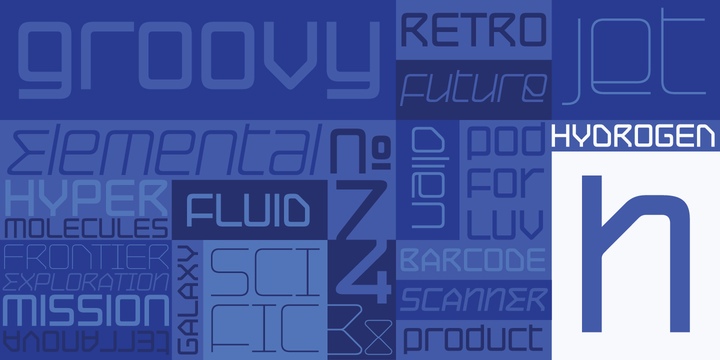
Hydrogen Font
Hydrogen Font is perfect for clean energy branding, scientific research publications, renewable technology materials, chemistry education resources, sustainable innovation campaigns, environmental science presentations, fuel cell technology communications, atomic research documentation, green technology startups, and pure energy industry materials.
What makes Hydrogen Font so exciting is its elemental embodiment of pure energy and scientific precision that captures the fundamental simplicity of the universe's most basic element through cleanly engineered typography. This scientifically inspired typeface features minimal letterforms with atomic proportions and energy-influenced character variations that immediately convey purity, efficiency, and the transformative power of clean energy solutions. The font's elemental construction and pure aesthetic create an instant sense of scientific clarity and sustainable innovation, making it ideal for projects that need to communicate clean energy solutions, scientific advancement, and the life-sustaining power of sustainable technology to audiences seeking authentic environmental solutions and meaningful scientific progress.
The Hydrogen Font family typically includes multiple clean weights and elemental styles, often featuring ultra-light through bold variations along with efficiently designed italic versions and energy-optimized alternatives. Scientific font collections frequently offer extensive character sets including chemical symbols, energy notation, and scientific elements that ensure optimal typography across diverse research communication requirements and clean technology applications.
The elemental nature of Hydrogen Font makes it particularly effective for targeting demographics that prioritize environmental sustainability and clean energy solutions in their professional and personal choices. Clean technology marketers and environmental researchers will find this font especially valuable for materials that must establish immediate scientific credibility and connect with audiences seeking authentic sustainable experiences and meaningful environmental innovation.
What sets Hydrogen Font apart is its ability to convey scientific purity while maintaining the accessibility necessary for effective environmental education and clean energy communication. This balanced characteristic makes it suitable for both technical research applications and public environmental contexts where projecting scientific competence and maintaining environmental accessibility must work together harmoniously.
Professional designers recognize that Hydrogen Font brings invaluable scientific credibility to projects across industries including renewable energy, environmental research, clean technology, and sustainable innovation. Its pure character and elemental appeal make it essential for organizations whose mission centers on advancing clean energy solutions, promoting environmental sustainability, and creating meaningful connections between scientific innovation and environmental protection.
The systematically optimized elemental design of Hydrogen Font ensures consistent clean energy messaging across all sustainability-focused communication applications while honoring the fundamental principles of scientific accuracy and environmental responsibility in contemporary typography.